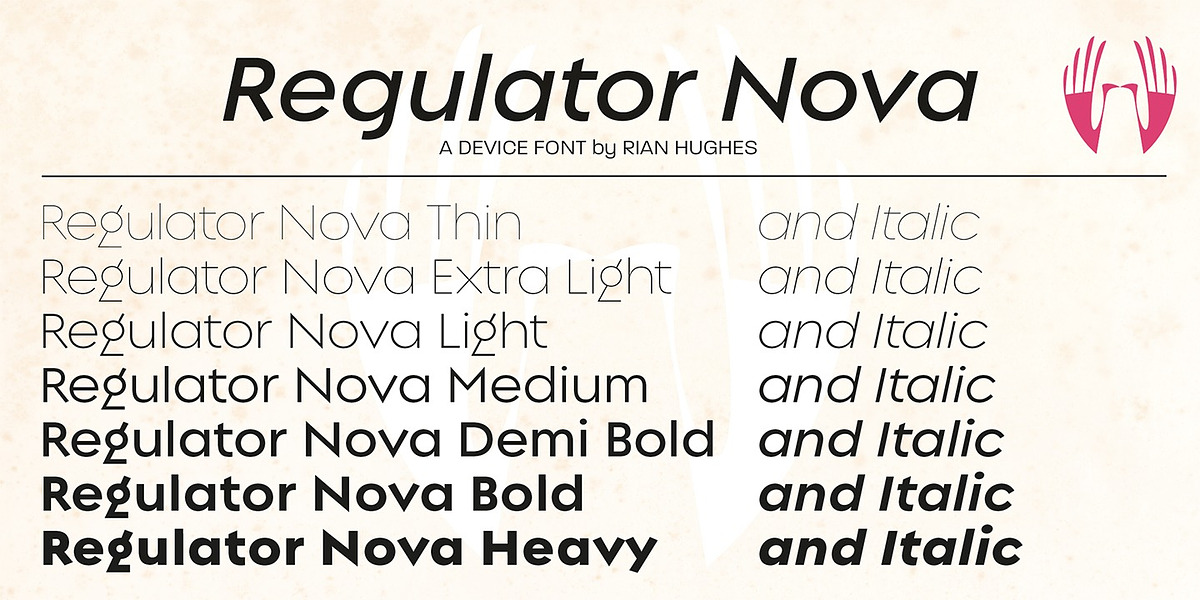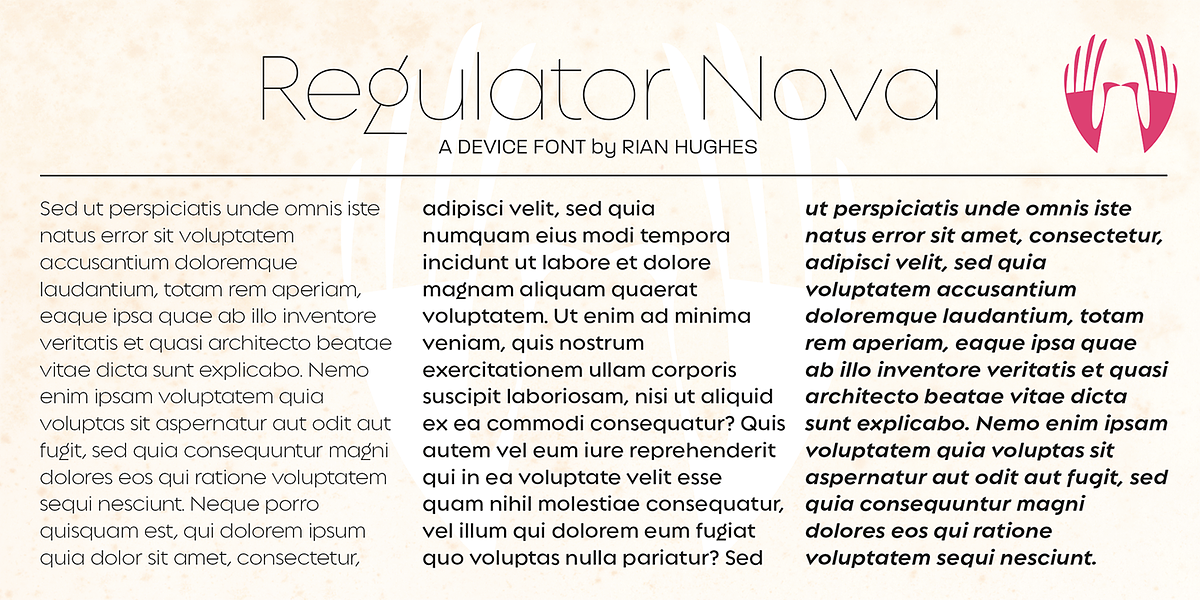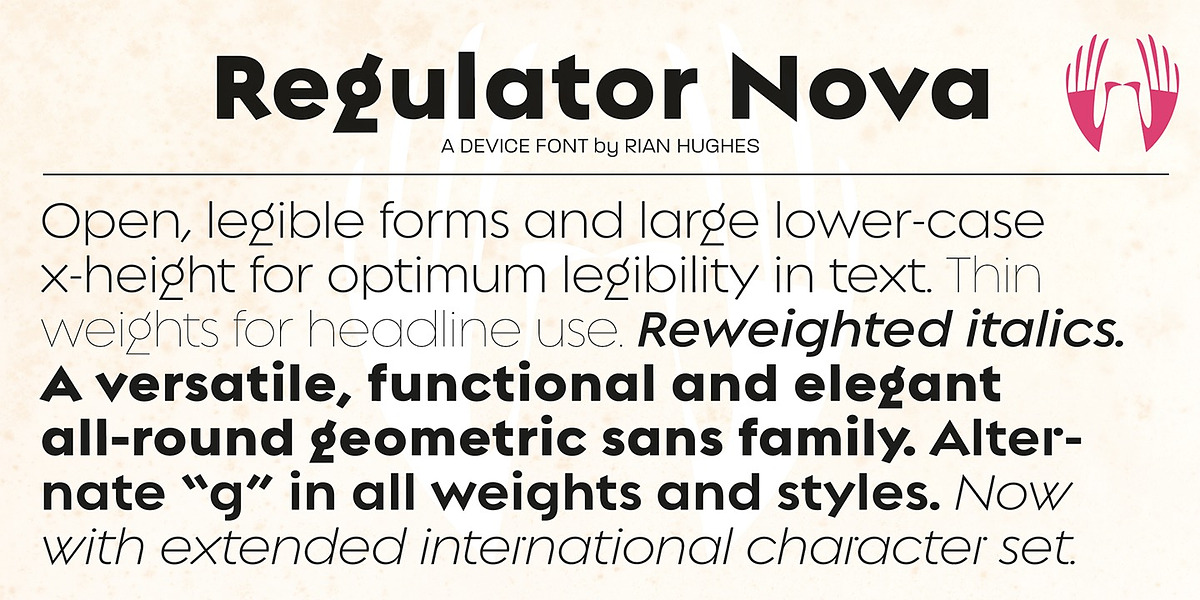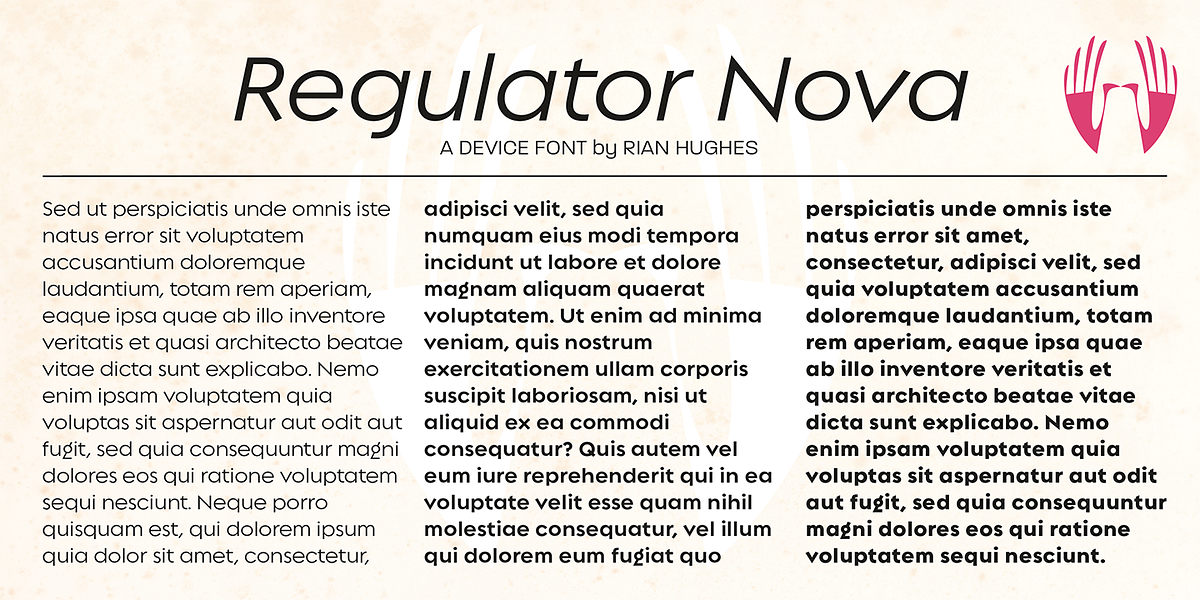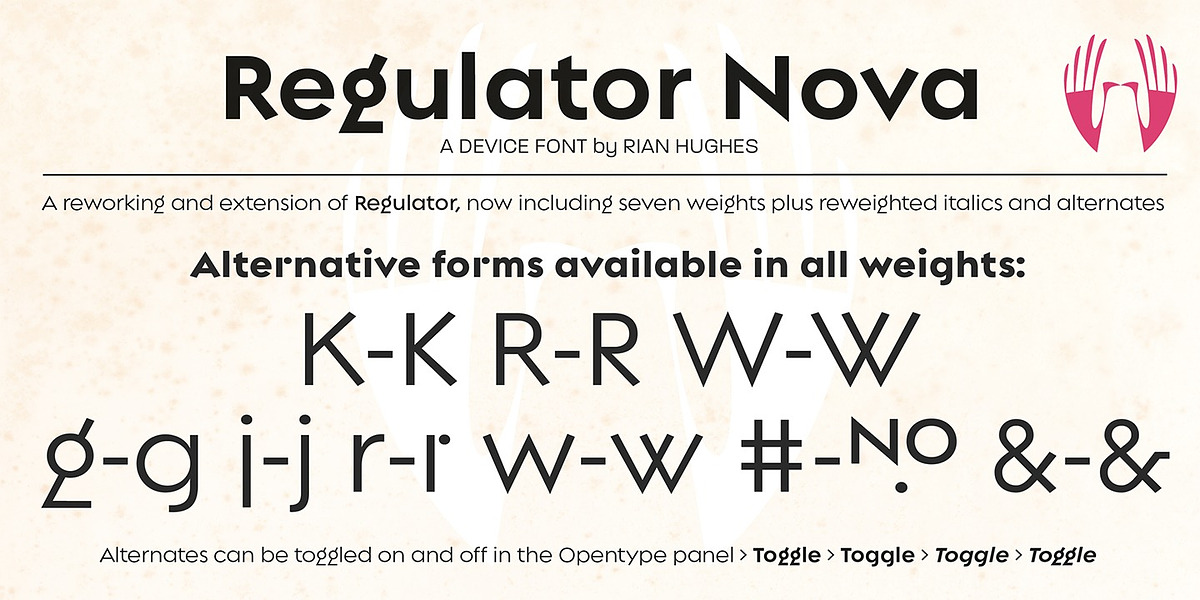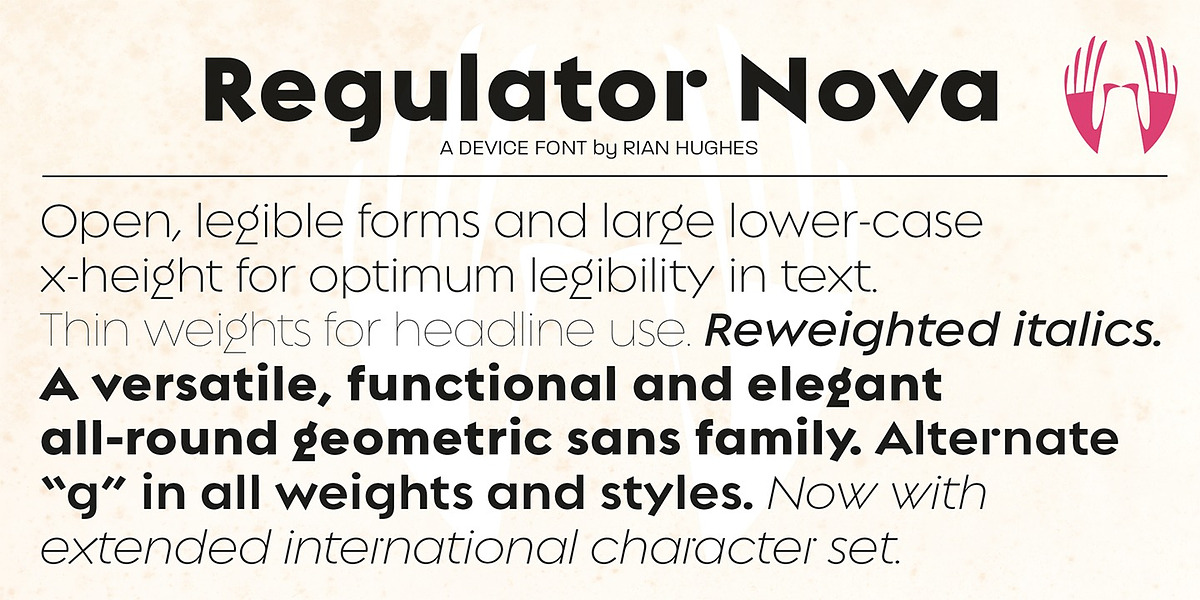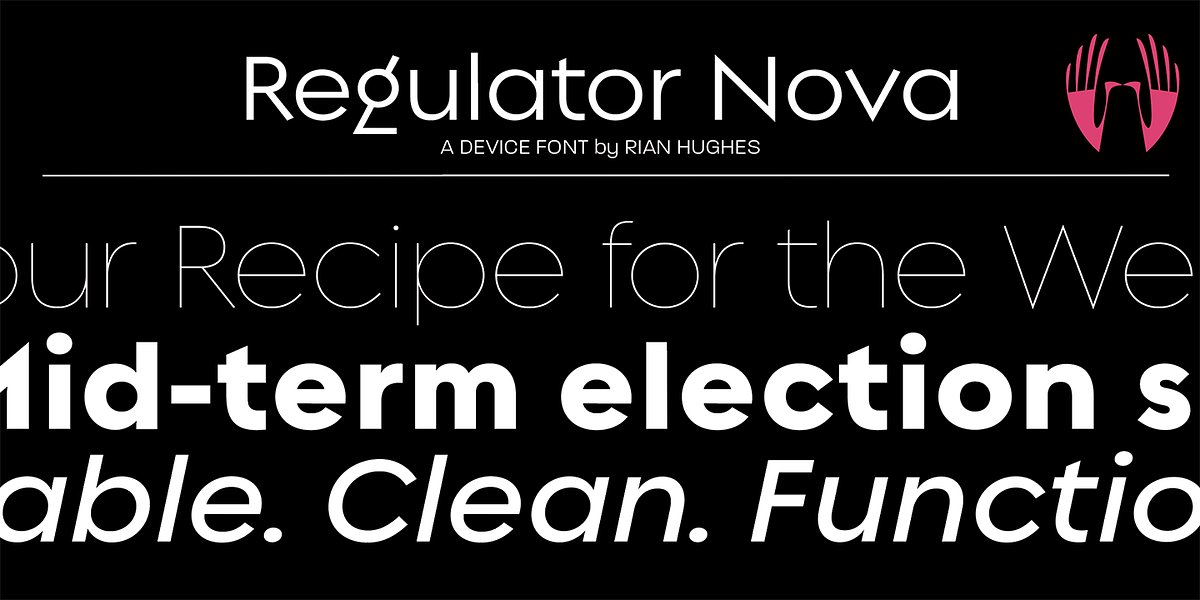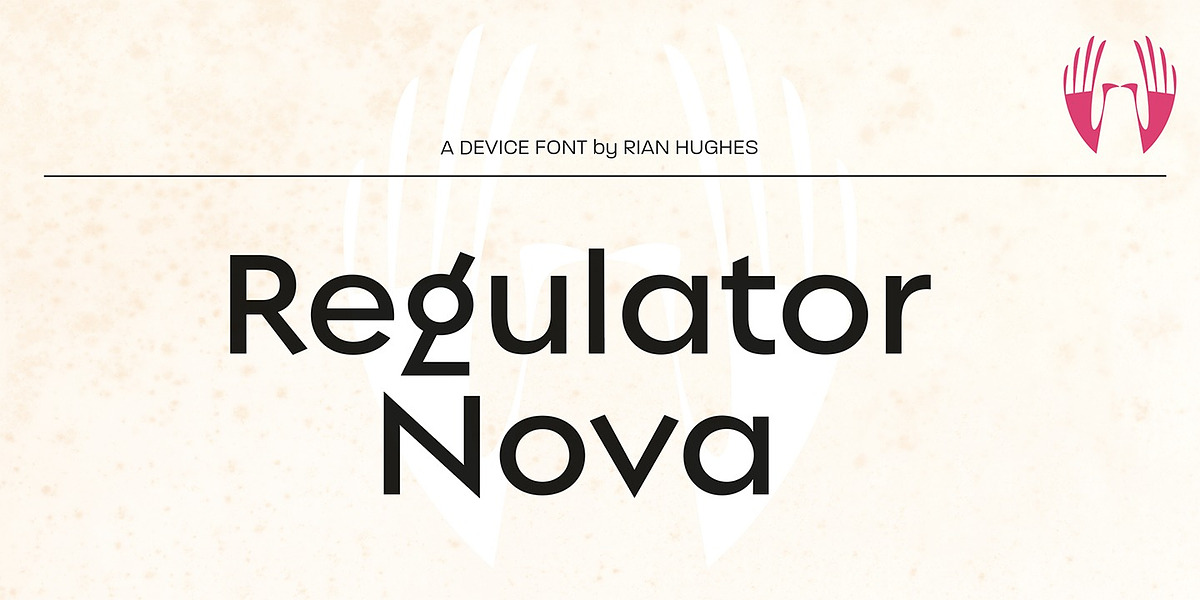
Regulator Nova
Regulator Nova is a geometric sans-serif font designed for high legibility. Its sharp terminals and open counters contribute to its clean and modern aesthetic. The font includes a range of weights suitable for both body text and headlines. Alternate characters are available for several letters in both upright and italic styles. Regulator Nova draws inspiration from early sans serifs like Kabel, while incorporating more British forms for certain letters.